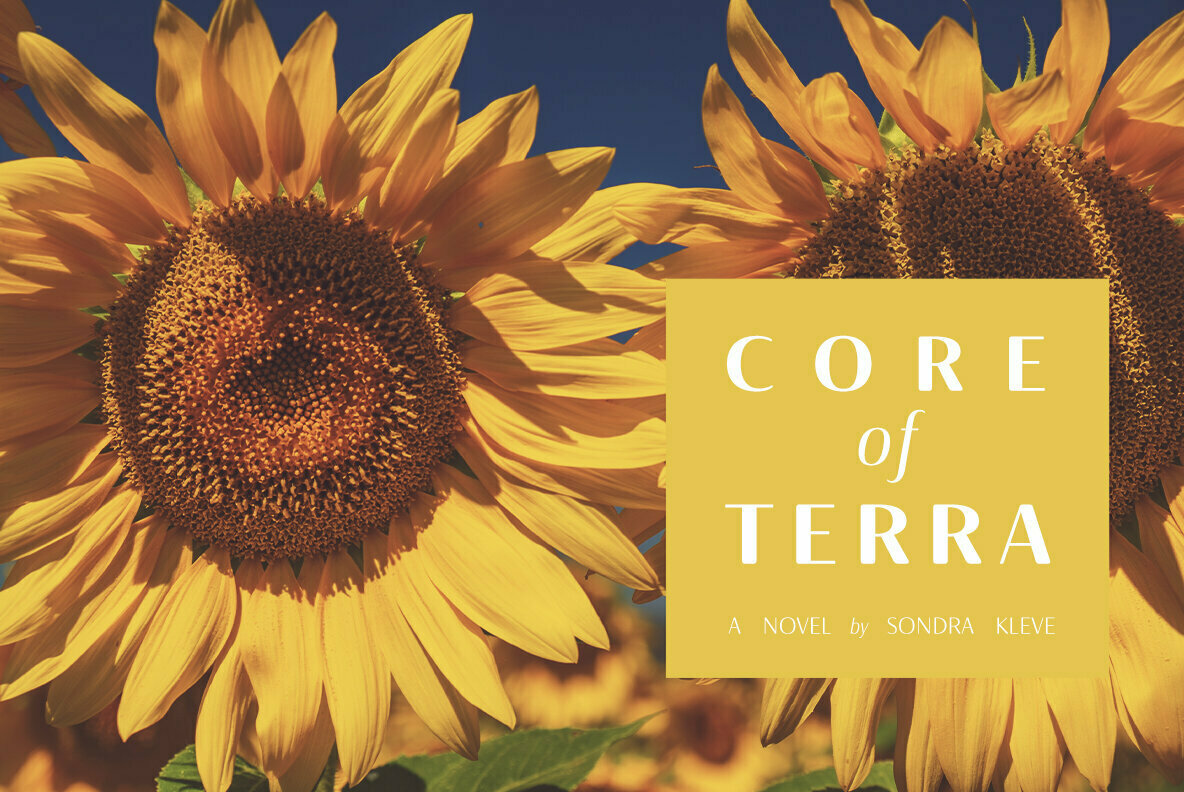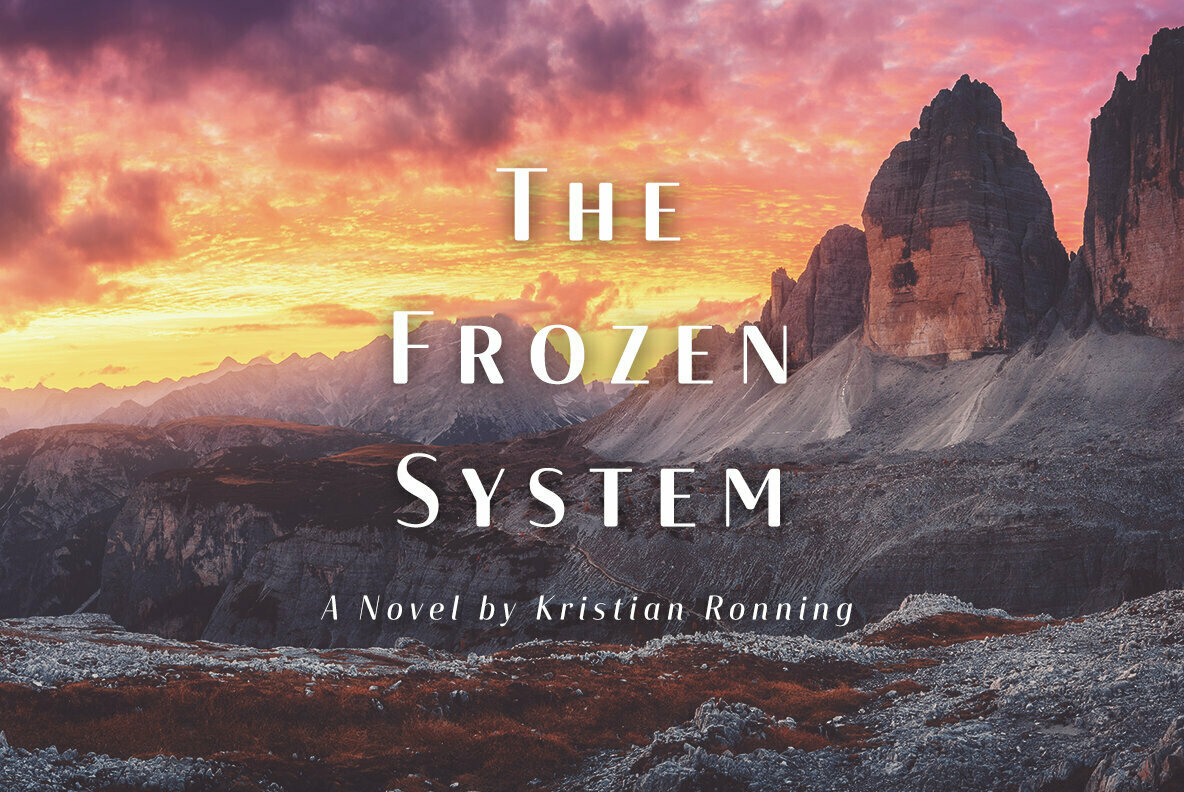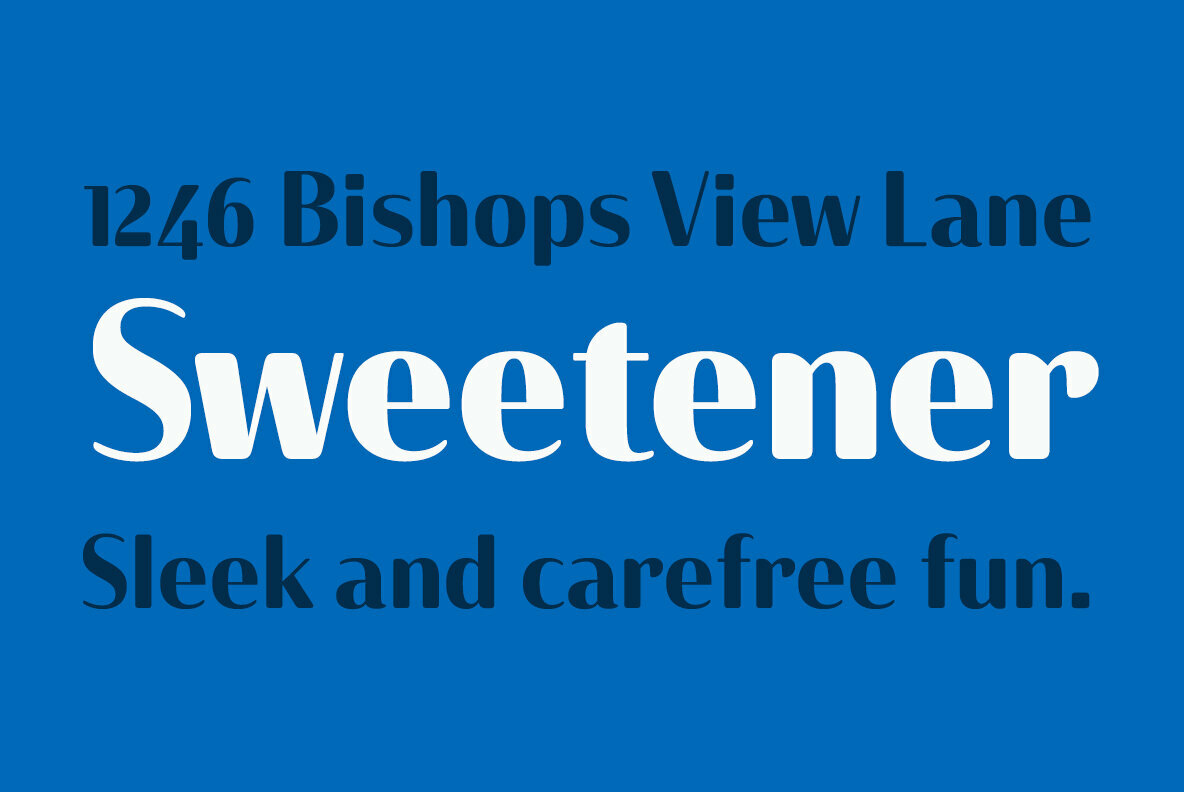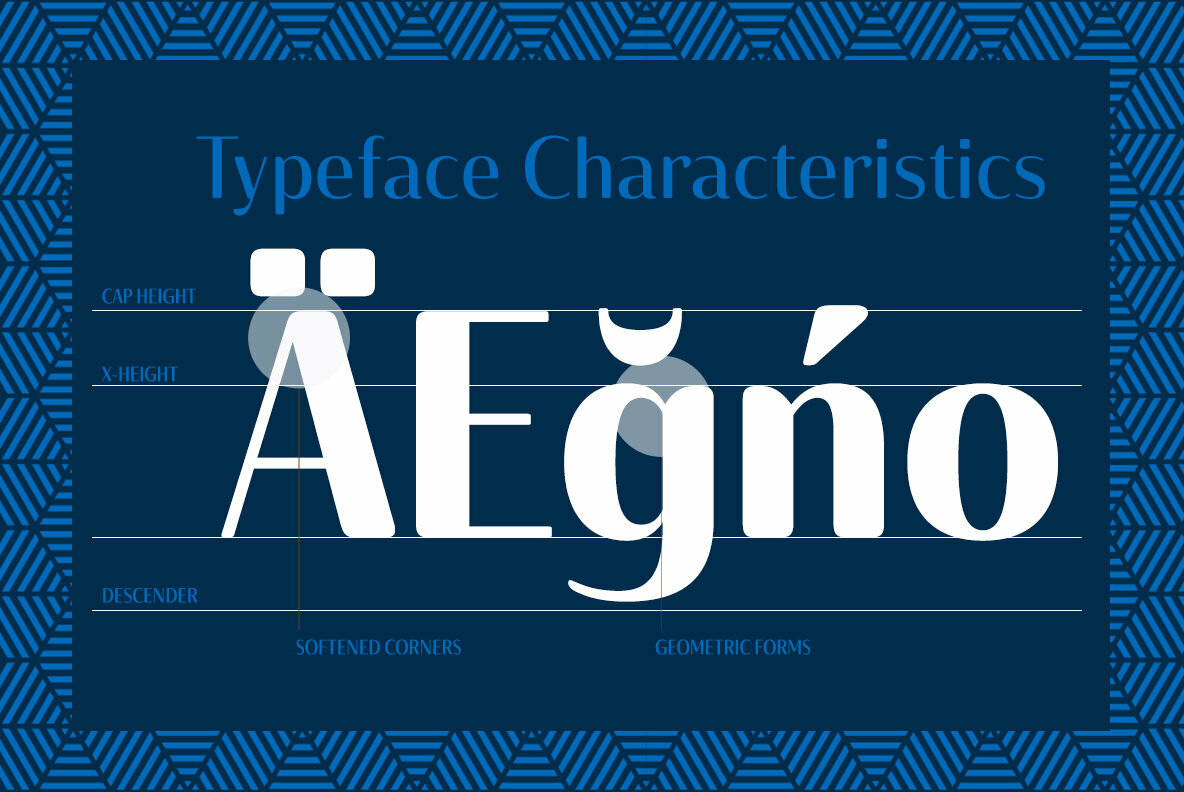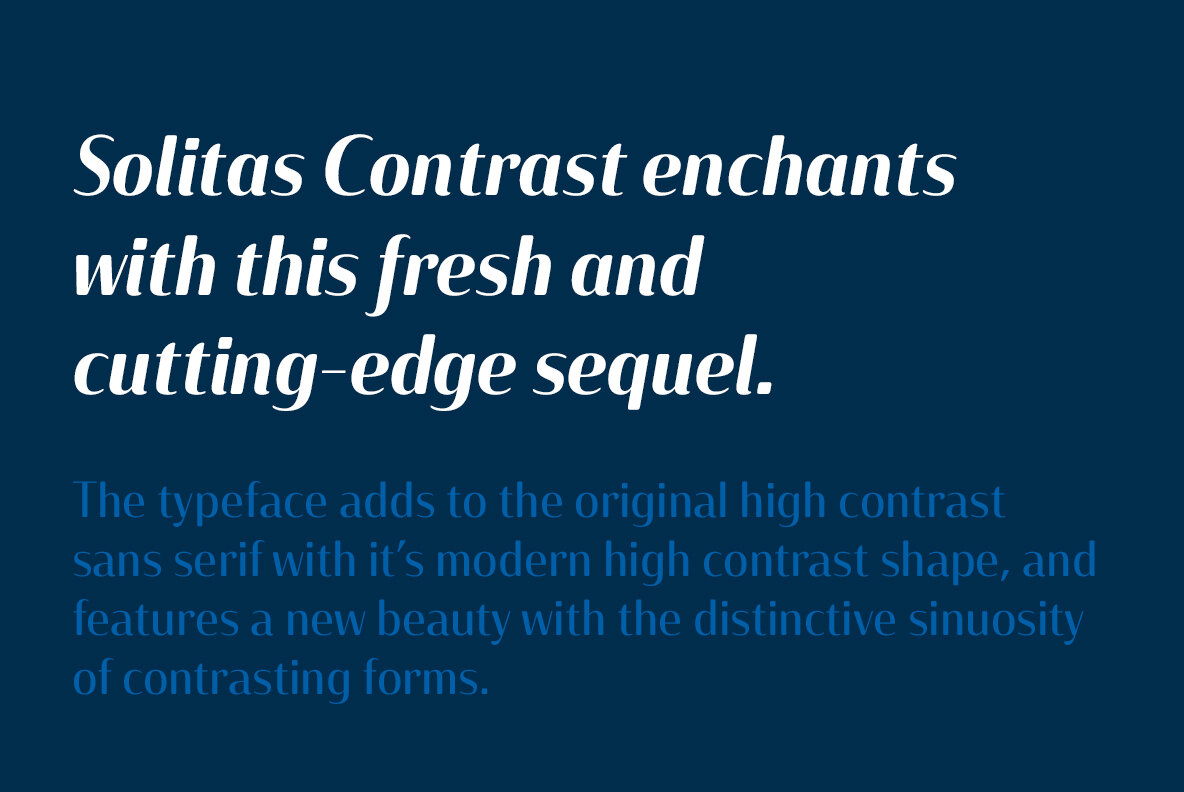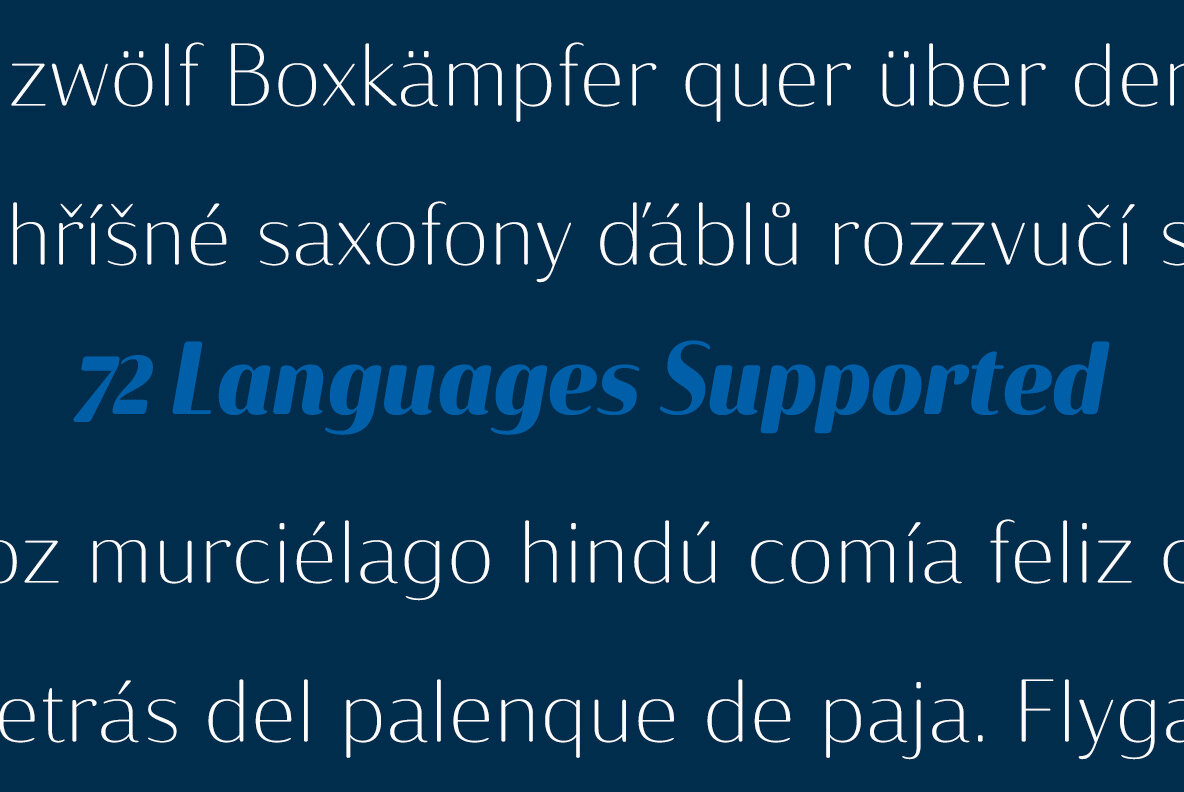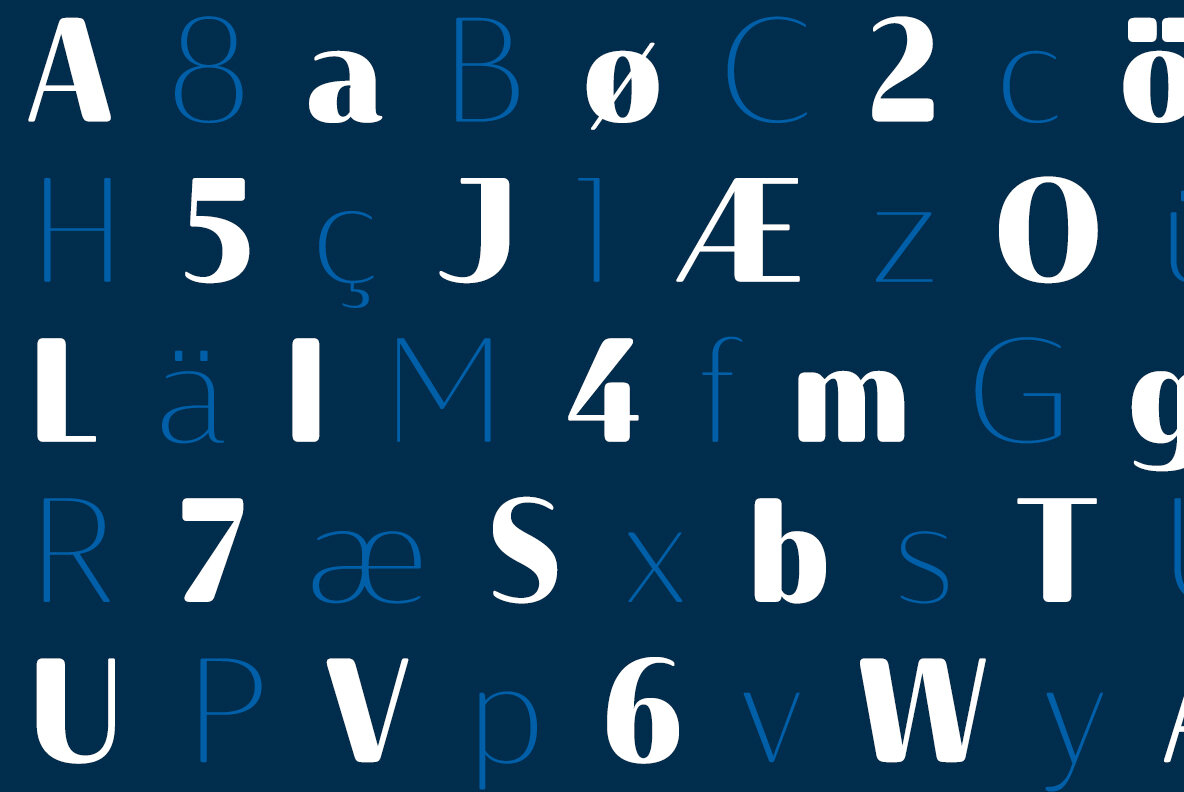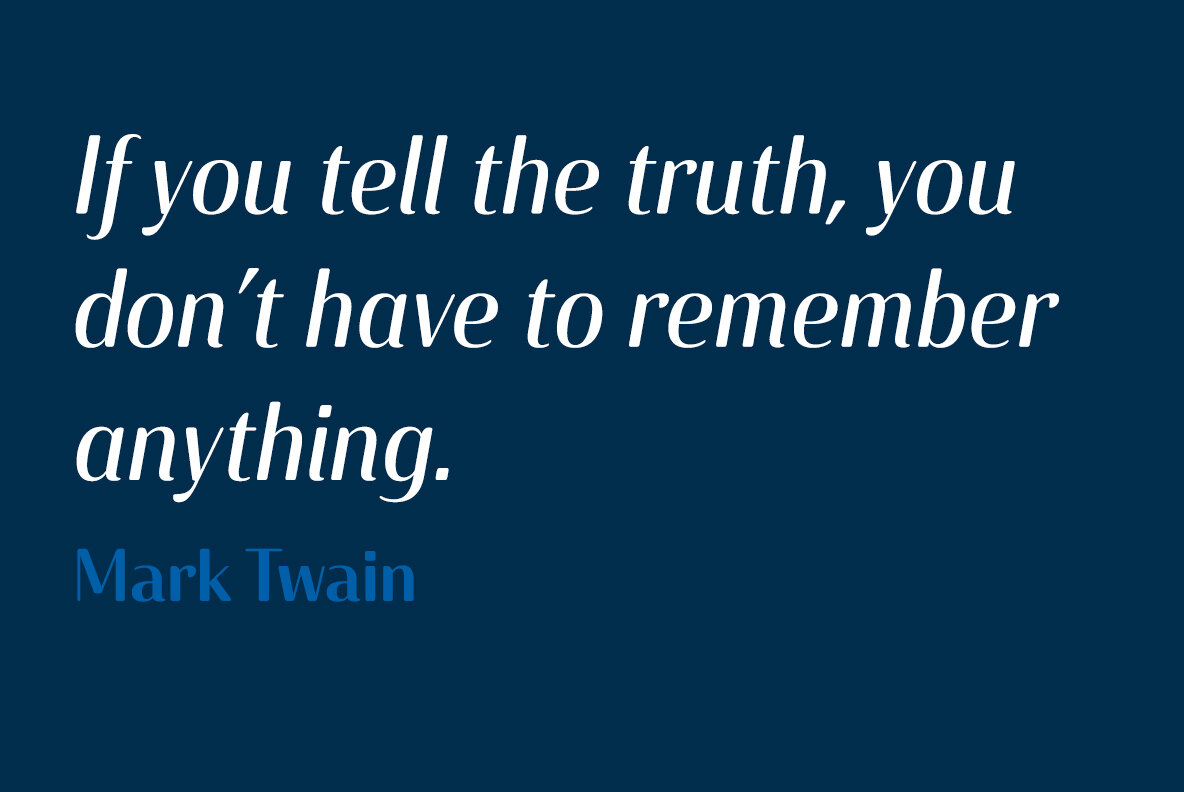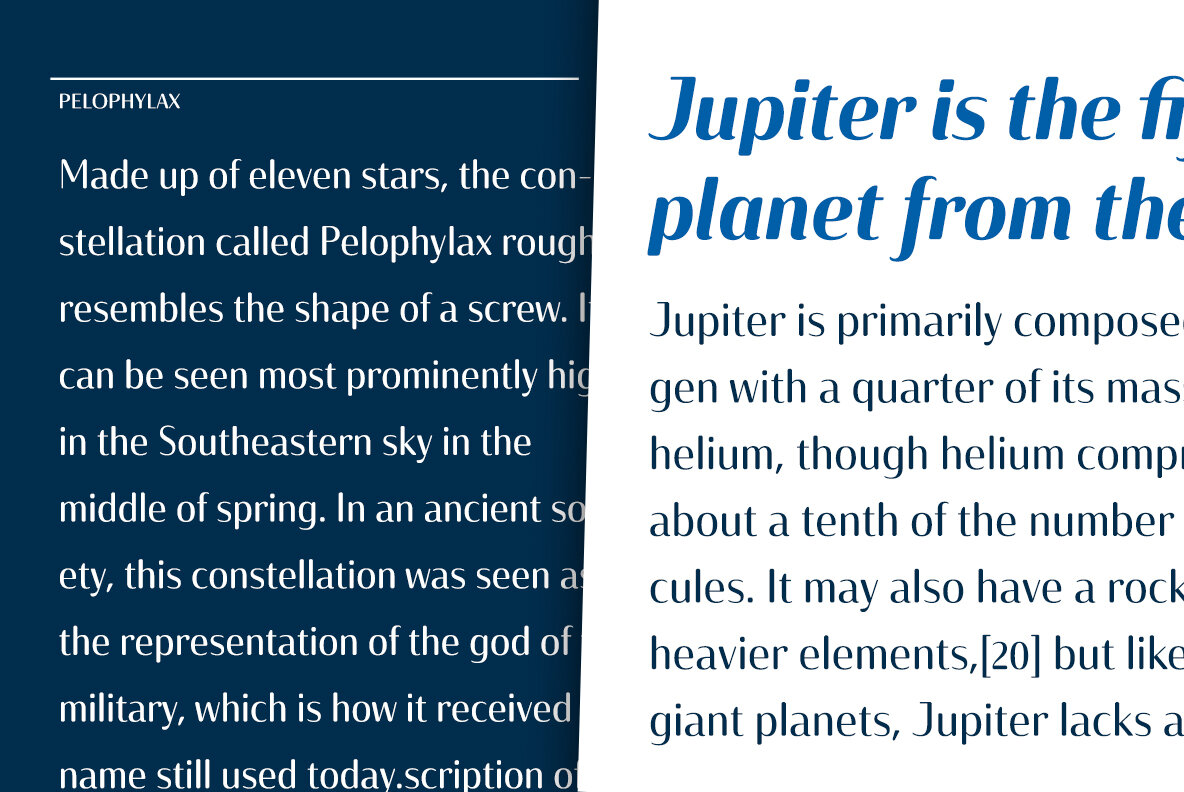
Solitas Contrast Font
This sleek, high contrast typeface means business, but it looks great on any project, no matter how big or small.
Solitas Contrast was developed because existing high contrast sans options were neither modern nor crisp. This design challenge was solved through a series of typefaces: the original low-contrast Solitas, its serifed cousins, and now a high contrast sans—each carefully considered for an organic and free flowing look. It evokes a Dutch or european feel.
Solitas Contrast is a modern, clean sans-serif with a distinctive style and impact.